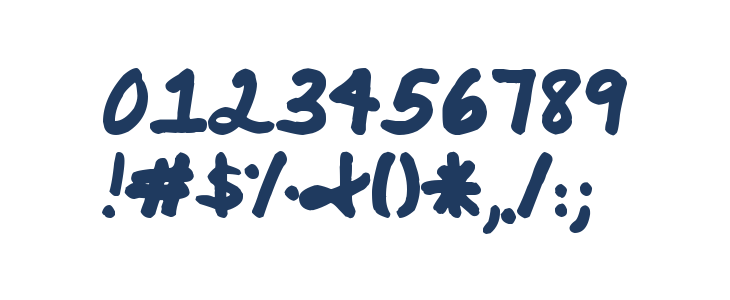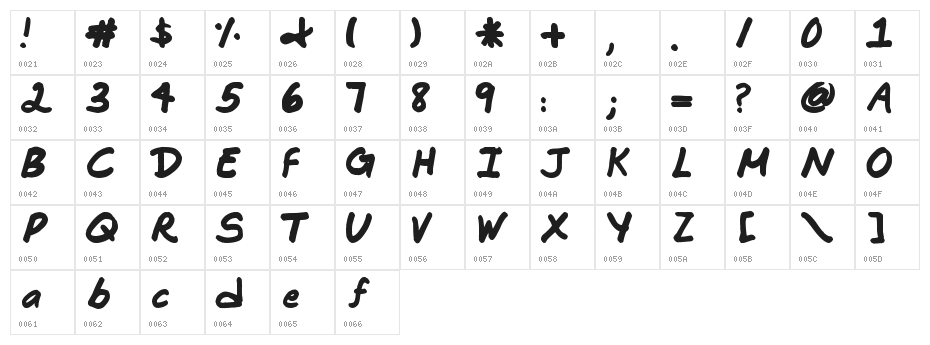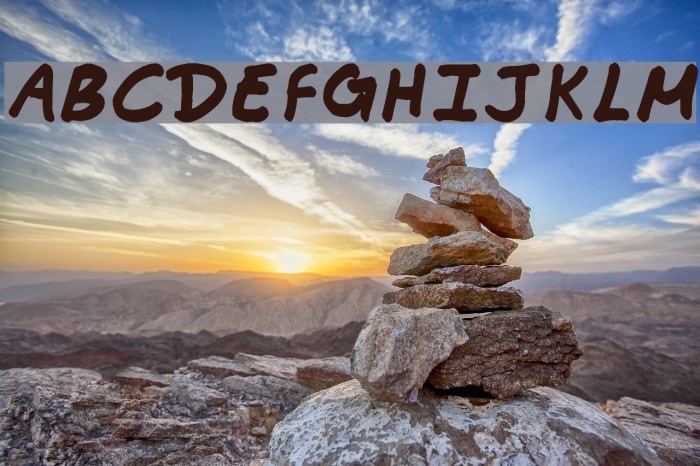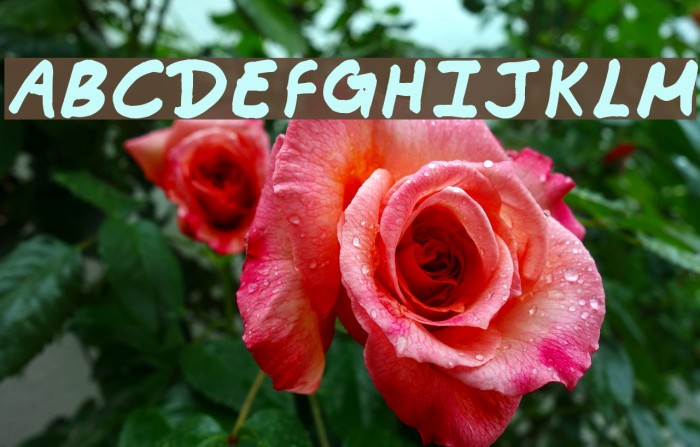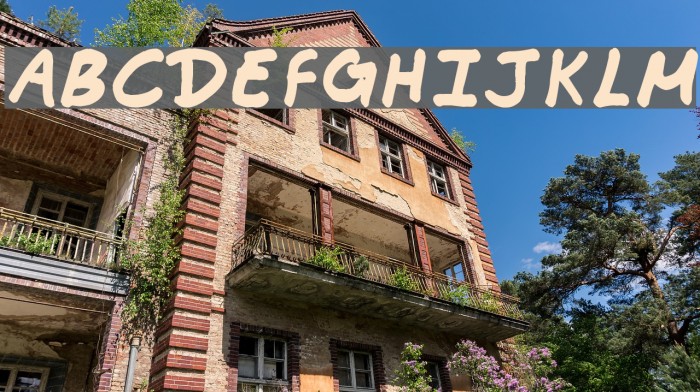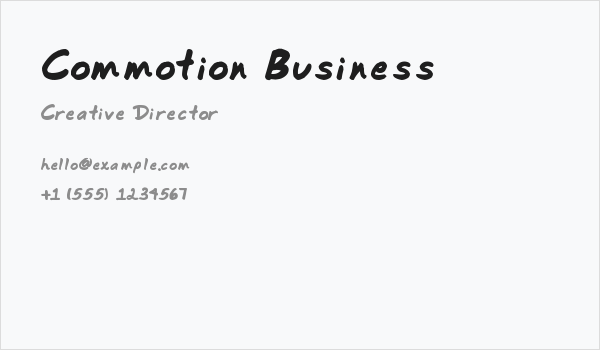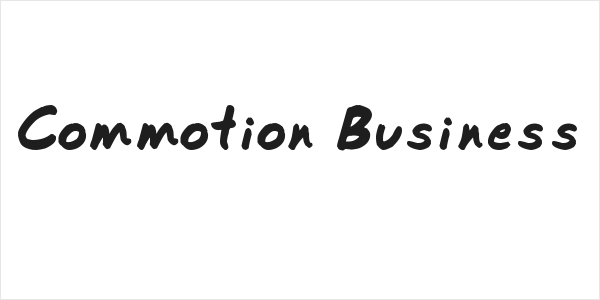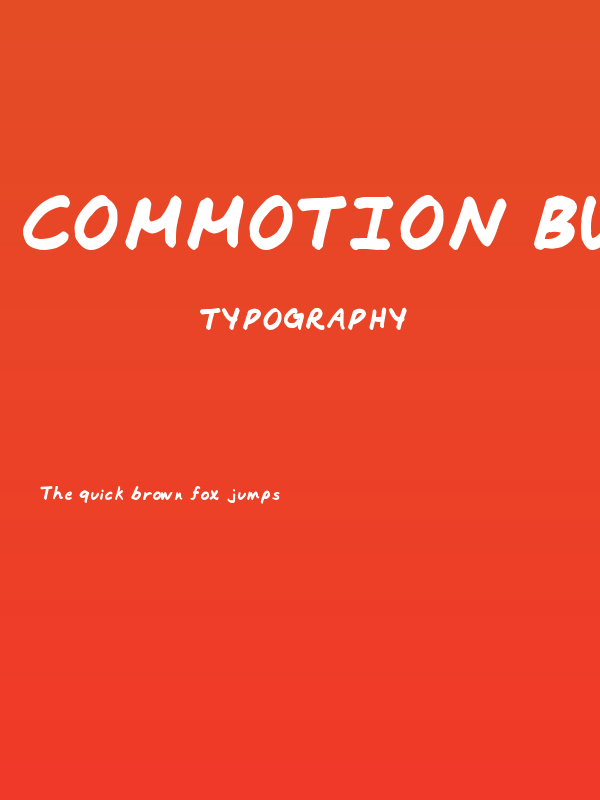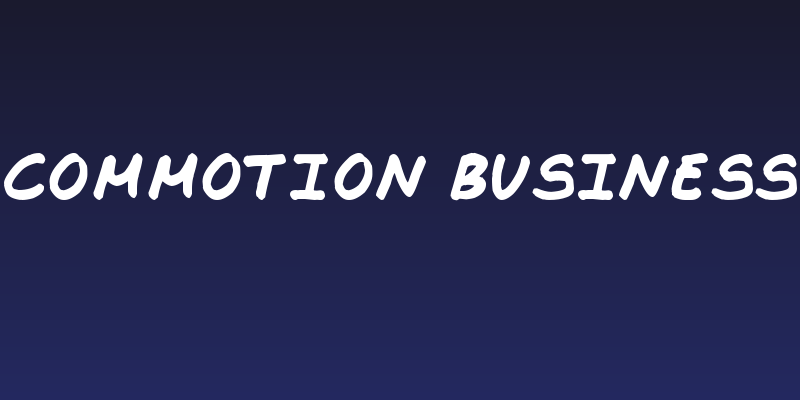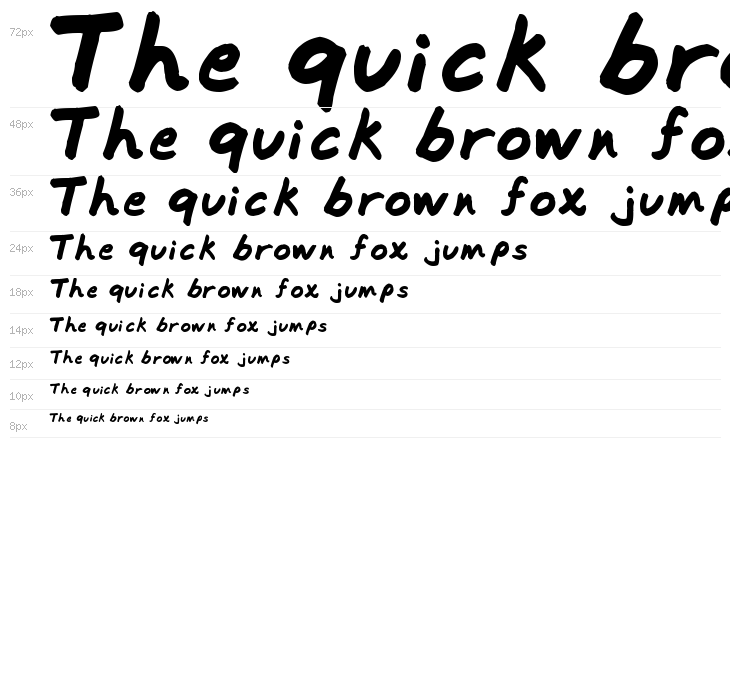
Commotion Business Font
Commotion Business Description
This font features a bold, handwritten style with a playful and energetic character. The letters are slightly irregular, giving it a casual and informal appearance. The strokes are thick and consistent, creating a strong visual impact. The uppercase and lowercase letters maintain a cohesive style, while the numbers and special characters blend seamlessly with the overall design. This font's dynamic nature makes it suitable for projects that require a personal touch or a sense of spontaneity.
| Overall Style | Casual, Playful |
| Use Case | Headlines, Logos, Informal Invitations |
| Proposed Projects | Ideal for greeting cards, posters, branding projects, and social media graphics. |